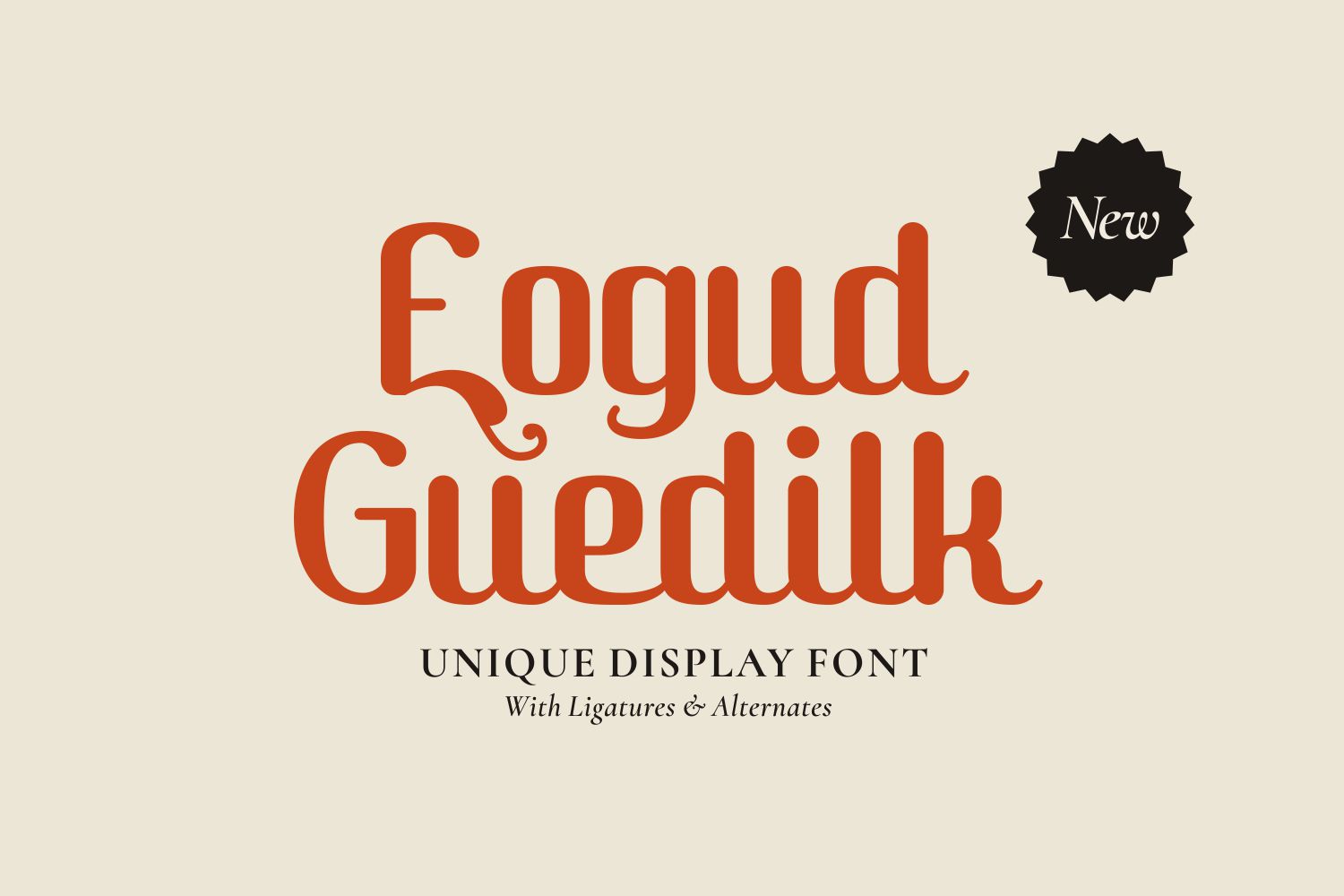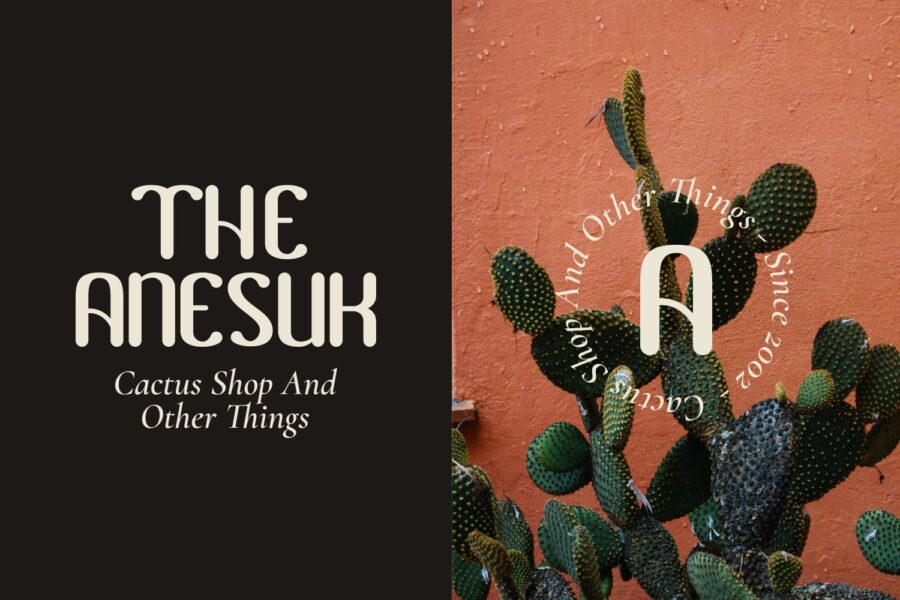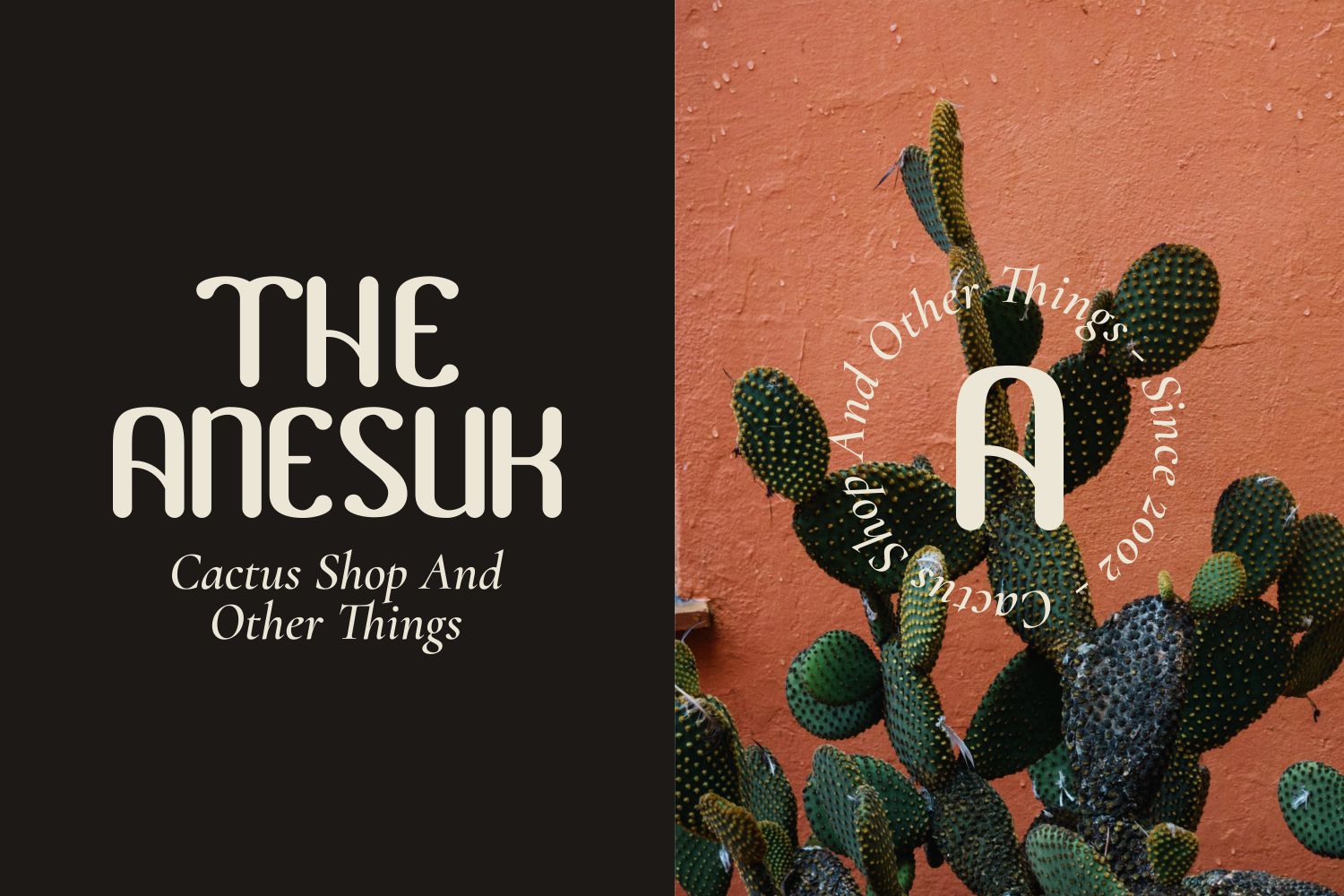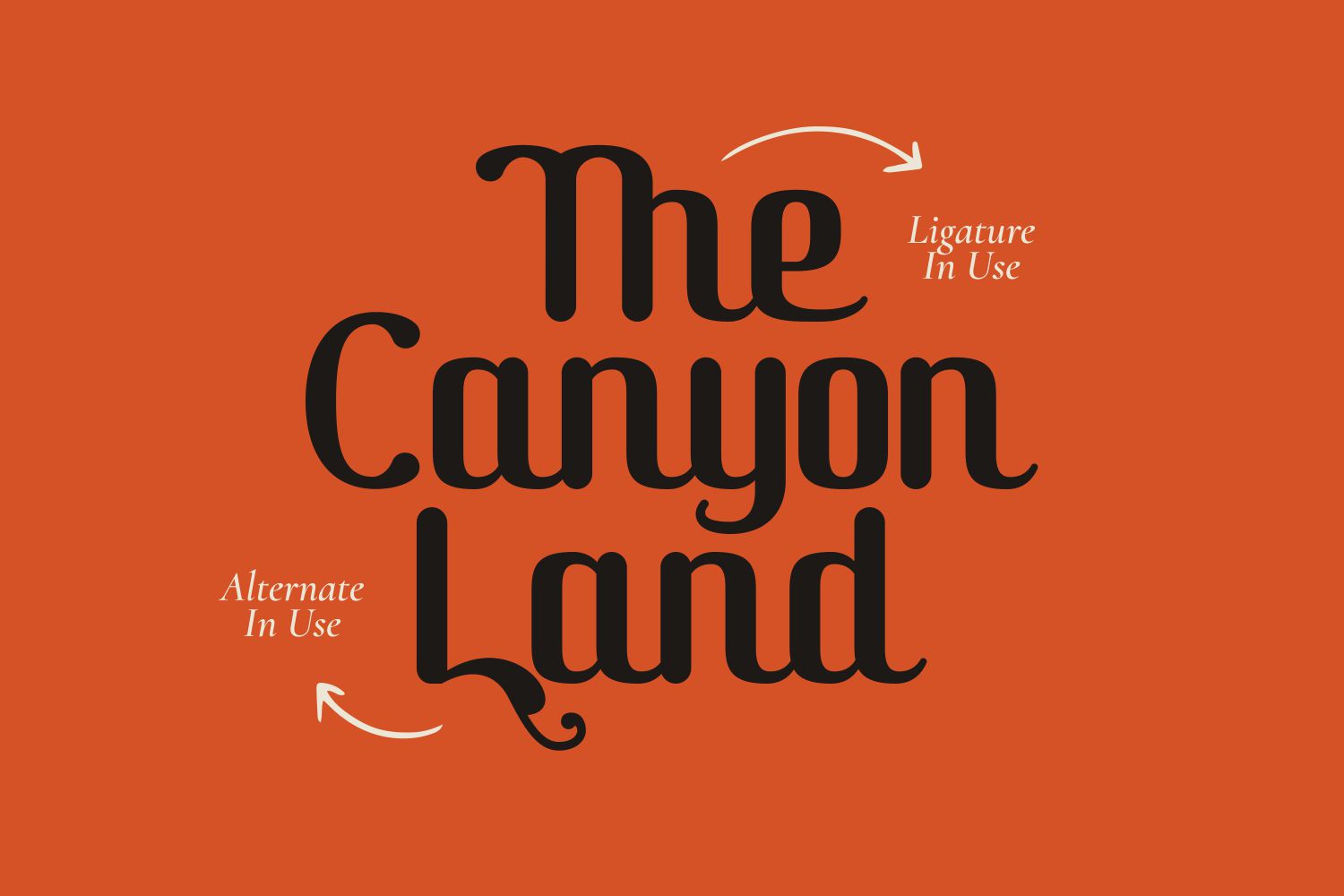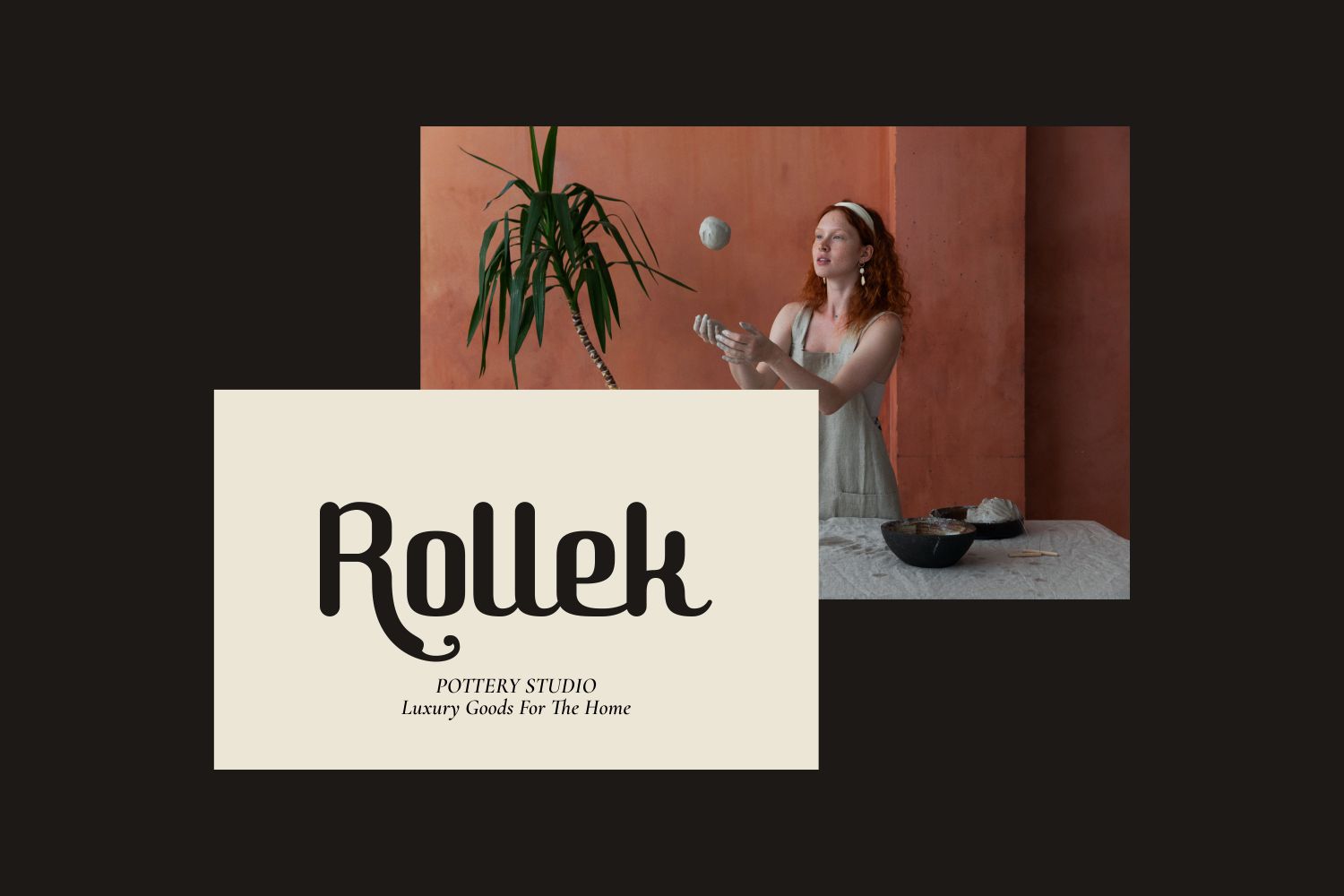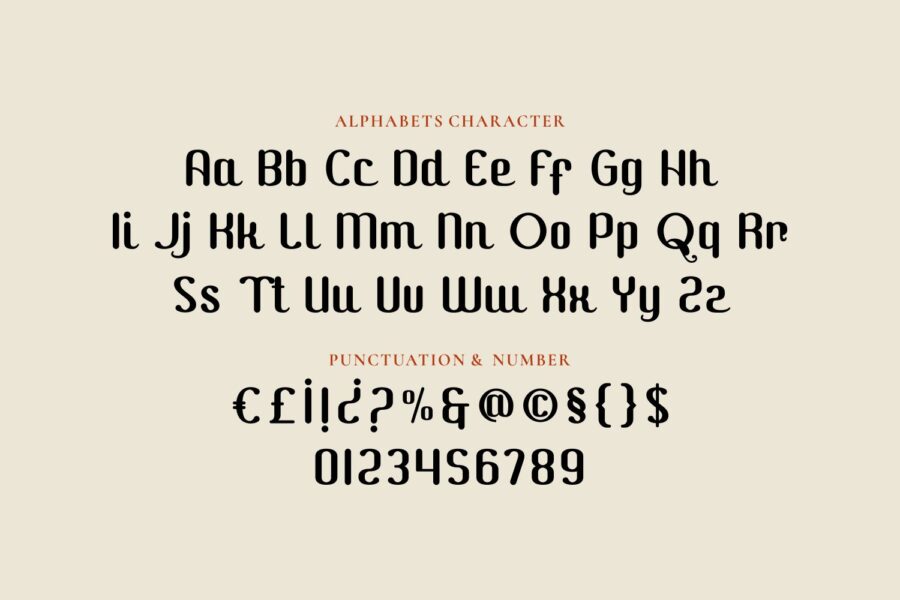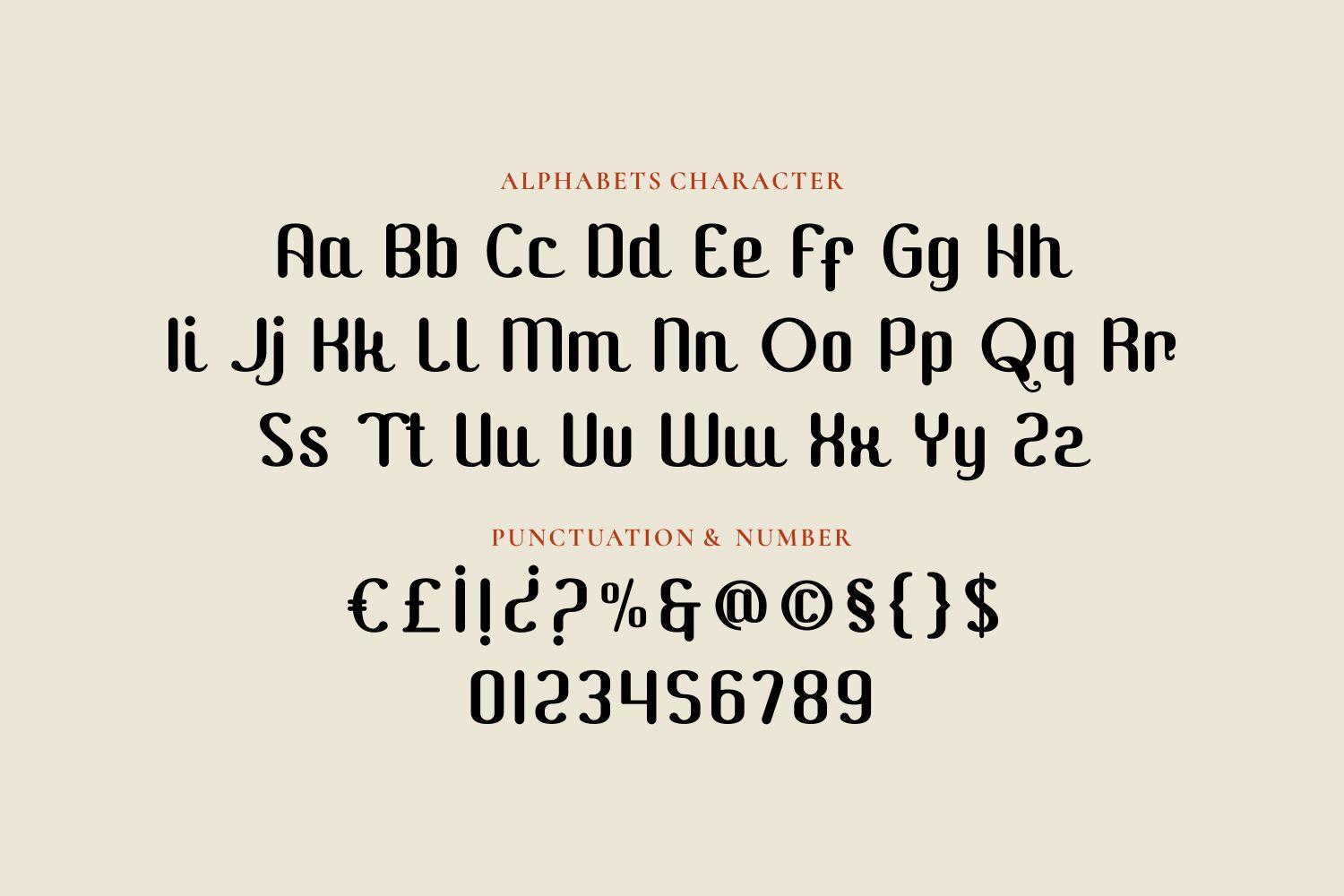
Eugod Guedilk
Eogud Guedilk is a unique display font that blends modern boldness with playful vintage details. Its rounded forms and subtle ornamental curves give it a distinctive personality, making it stand out in logos, posters, packaging, and creative branding. With a balance between strong structure and decorative touches, this font is designed to attract attention while keeping an elegant flow.
Featuring alternates and ligatures, Eogud Guedilk allows endless customization for designers who want to create something special. From editorial titles and product labels to lifestyle branding and café identities, this typeface delivers versatility and style. It’s the perfect choice for projects that require both originality and charm.